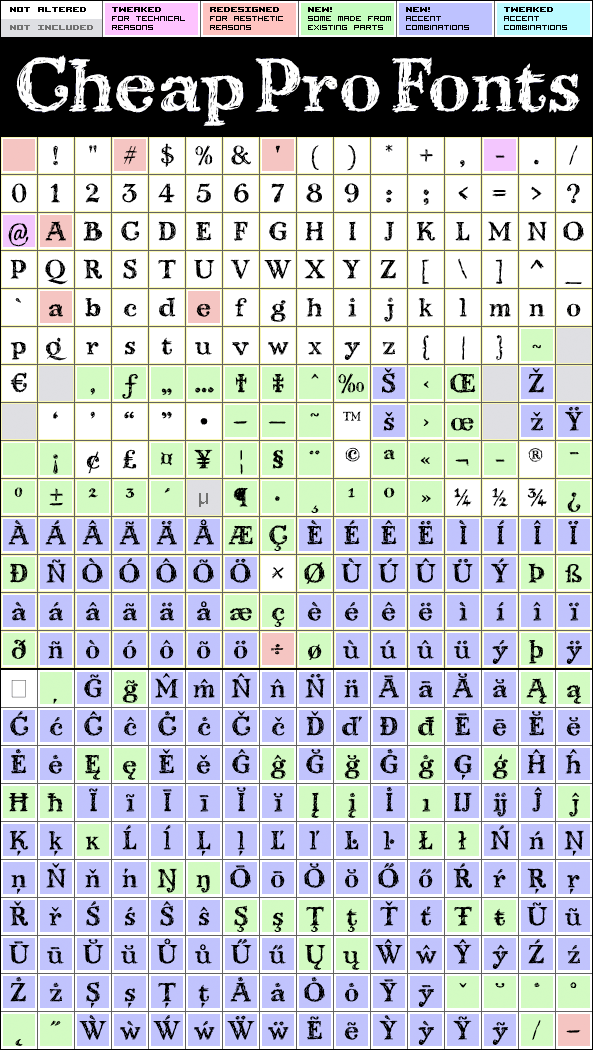
Kingthings Scrybble Pro
Kingthings Scrybble Pro by Kevin King
Kevin King
376 glyphs!
(109 in original)
503 class kernpairs
= 10000 kerning pairs
(113 in original)
This is a dotless version of Kingthings Scrybbledot Pro - perfect if you like the scribbles, but not the splutter. ;)
Kingthings Scrybble Pro is a professionally reworked font that contains an extended character set for setting text in 65 languages requiring more than the basic A-Z!
Kingthings Scrybble Pro